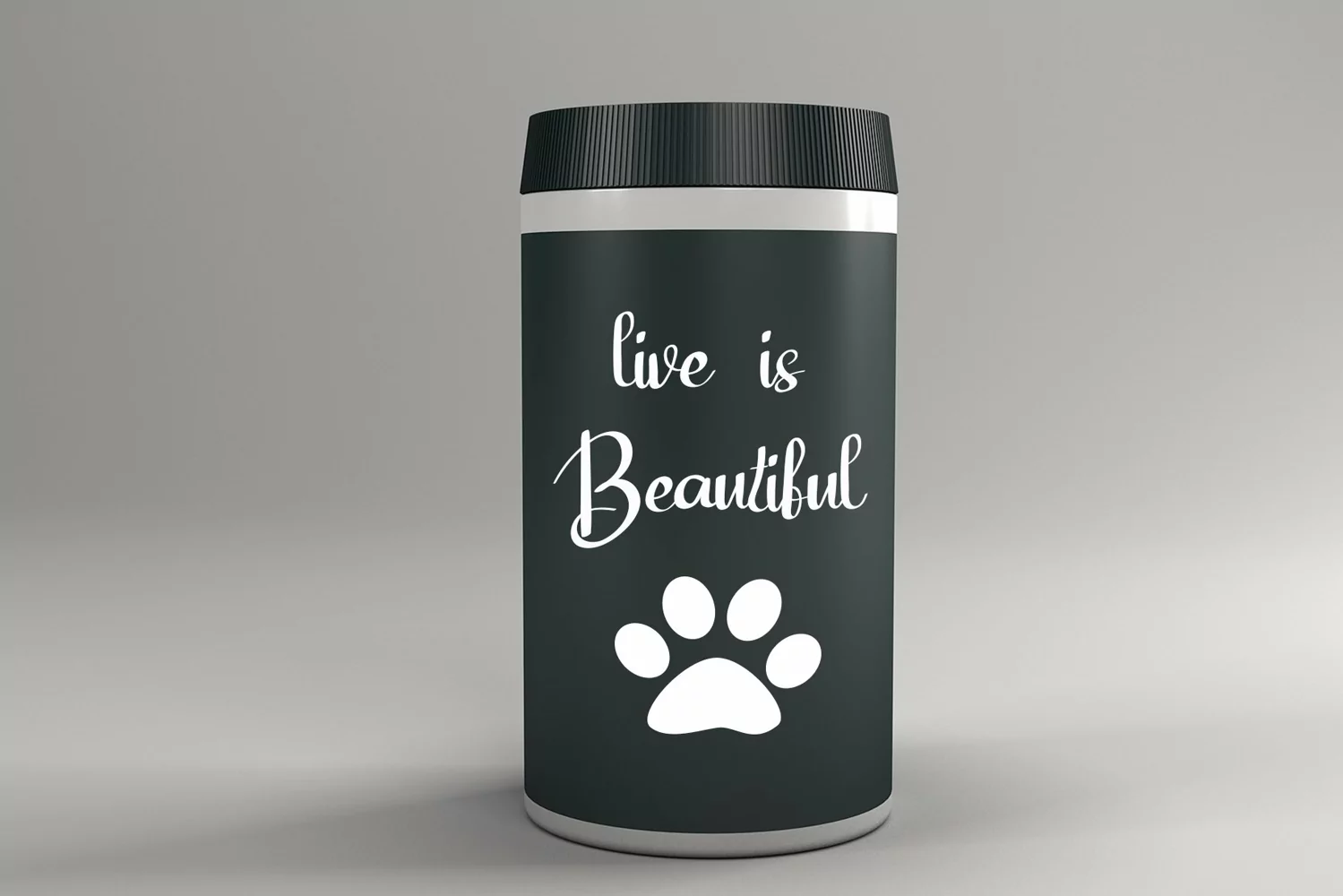
Background Dinosaur
Introducing, this is our newest product, we call this product Background Dinosaur,
It looks amazing with sweet touches and beautiful curves in each letter. Background Dinosaur fonts are perfect for: wedding invitations, fashion magazines, logos, signatures, photography, watermarks, wall displays, social media,